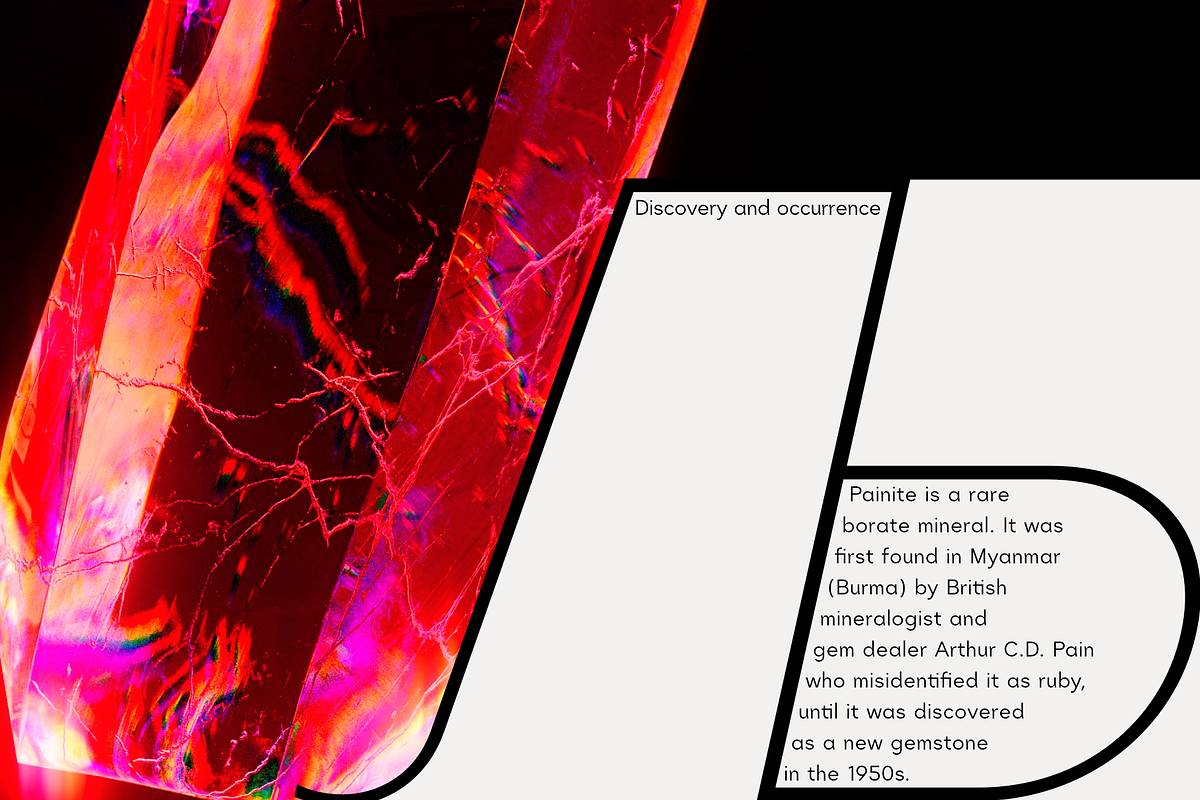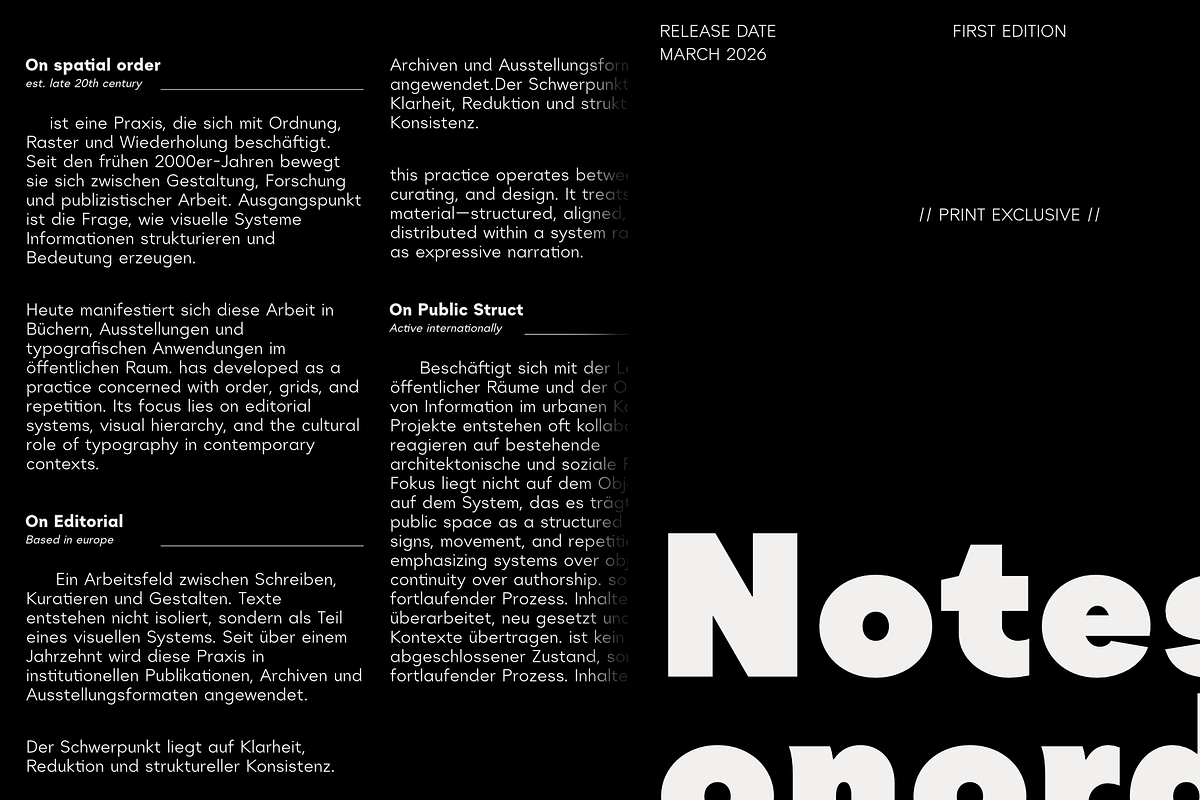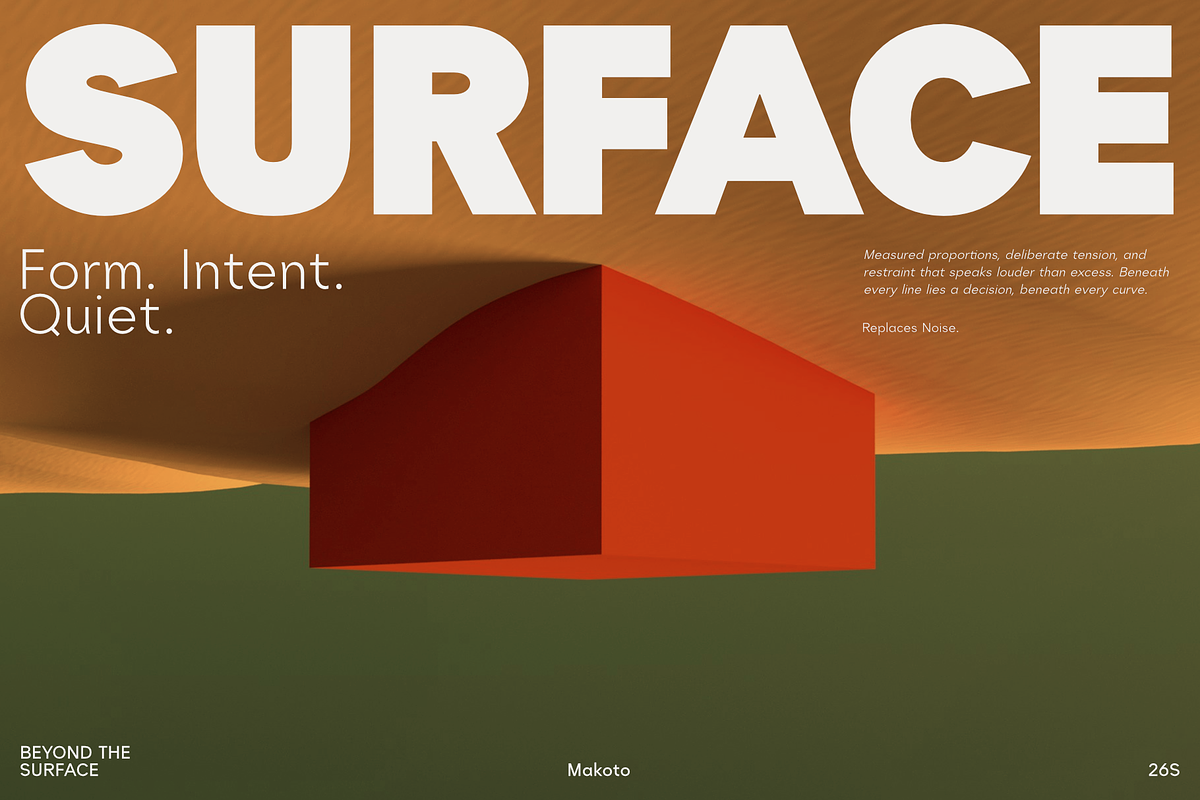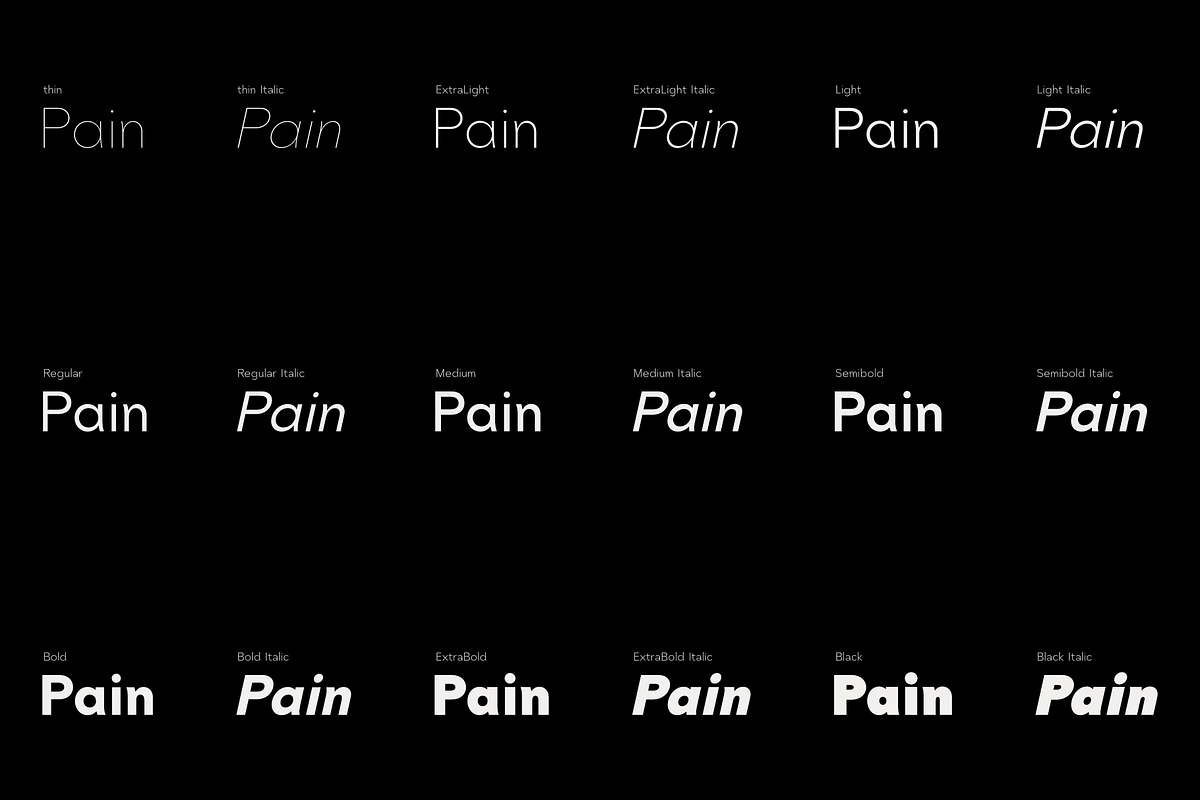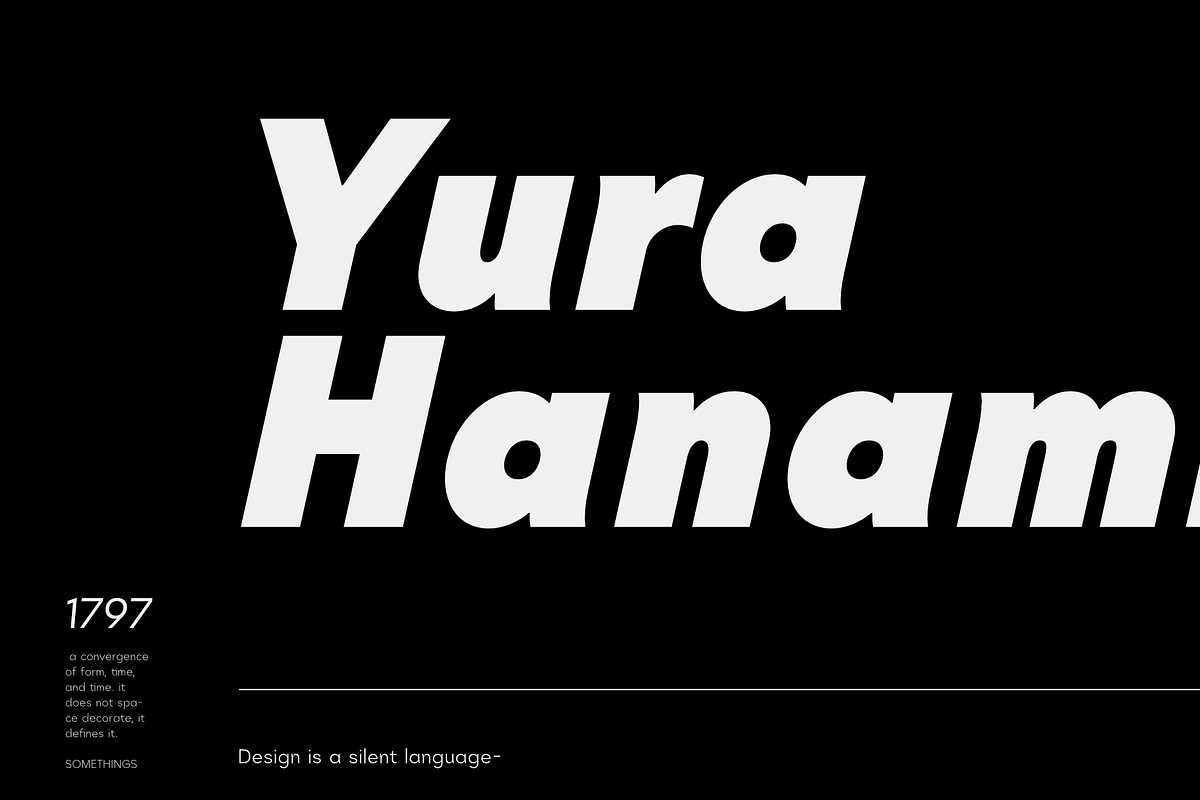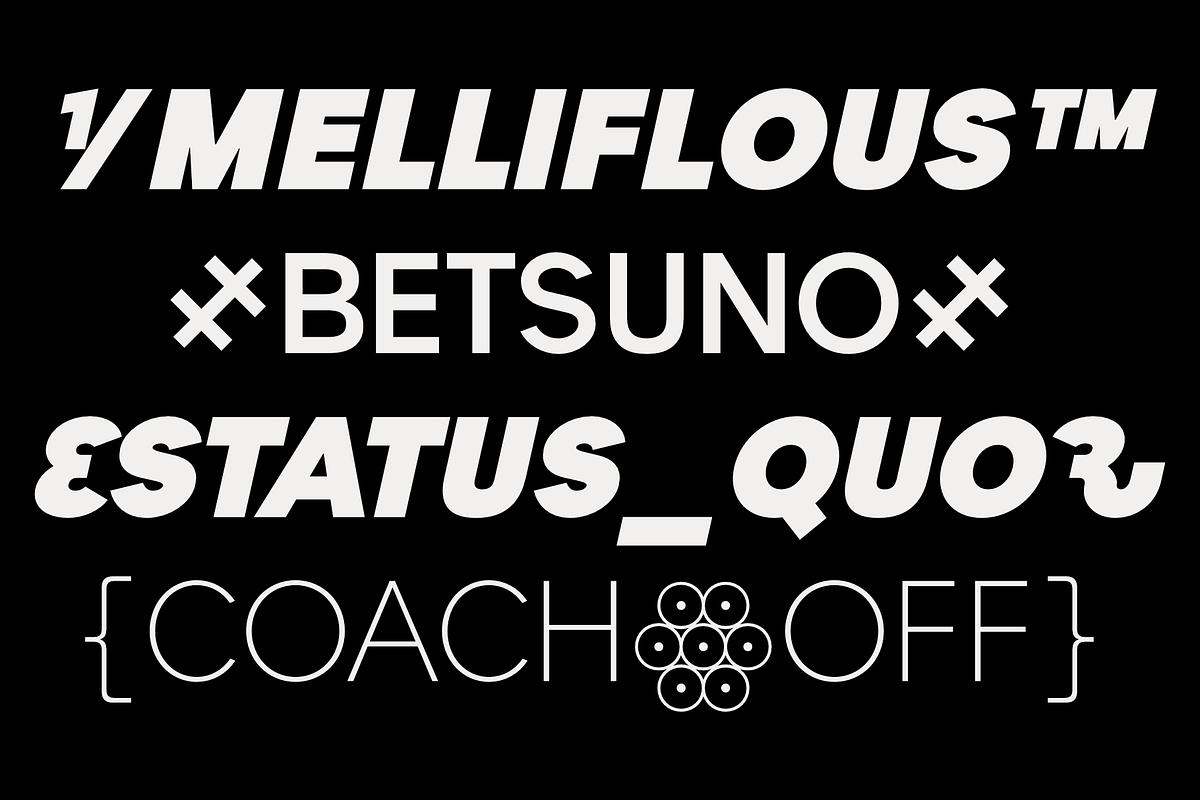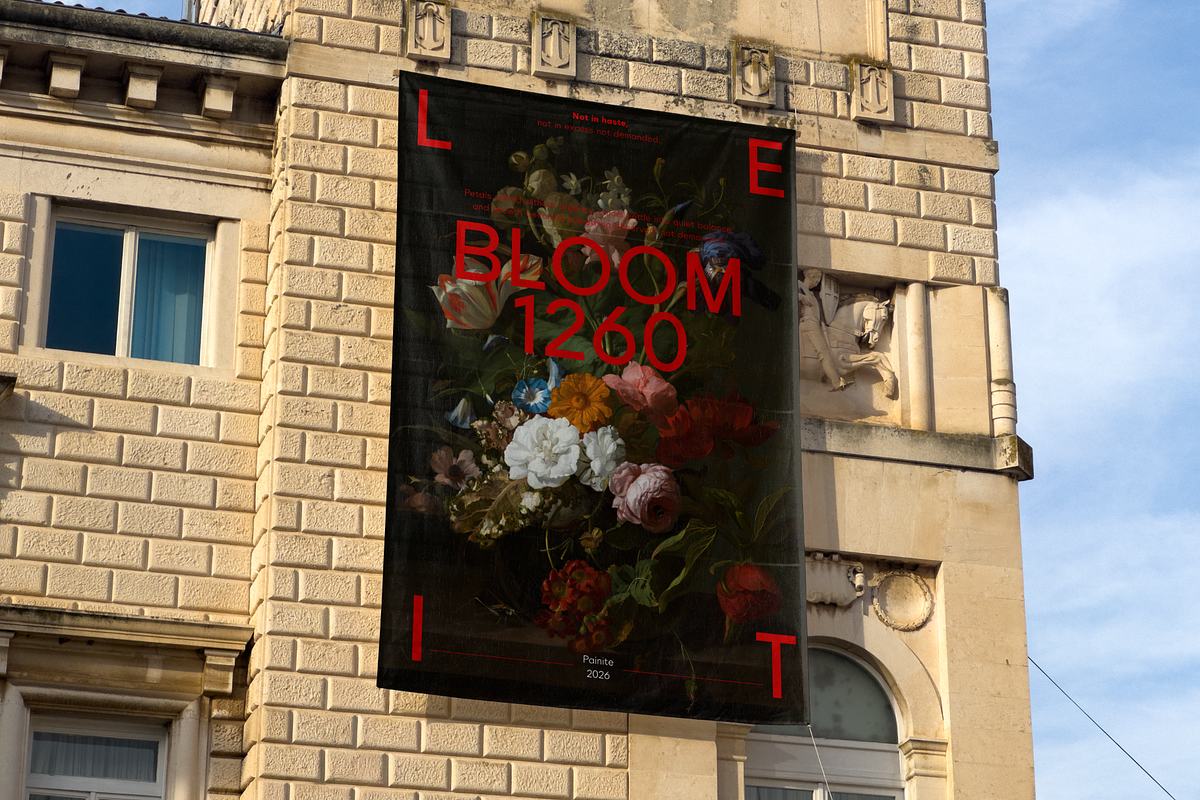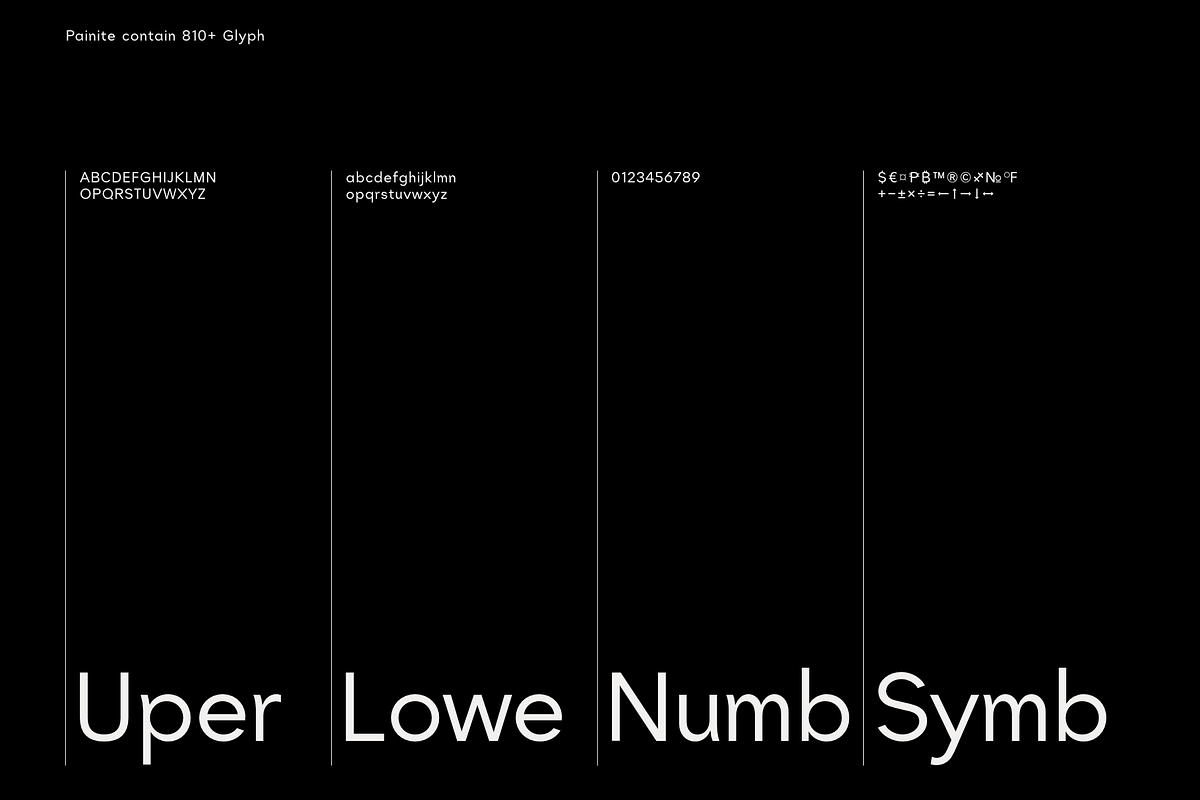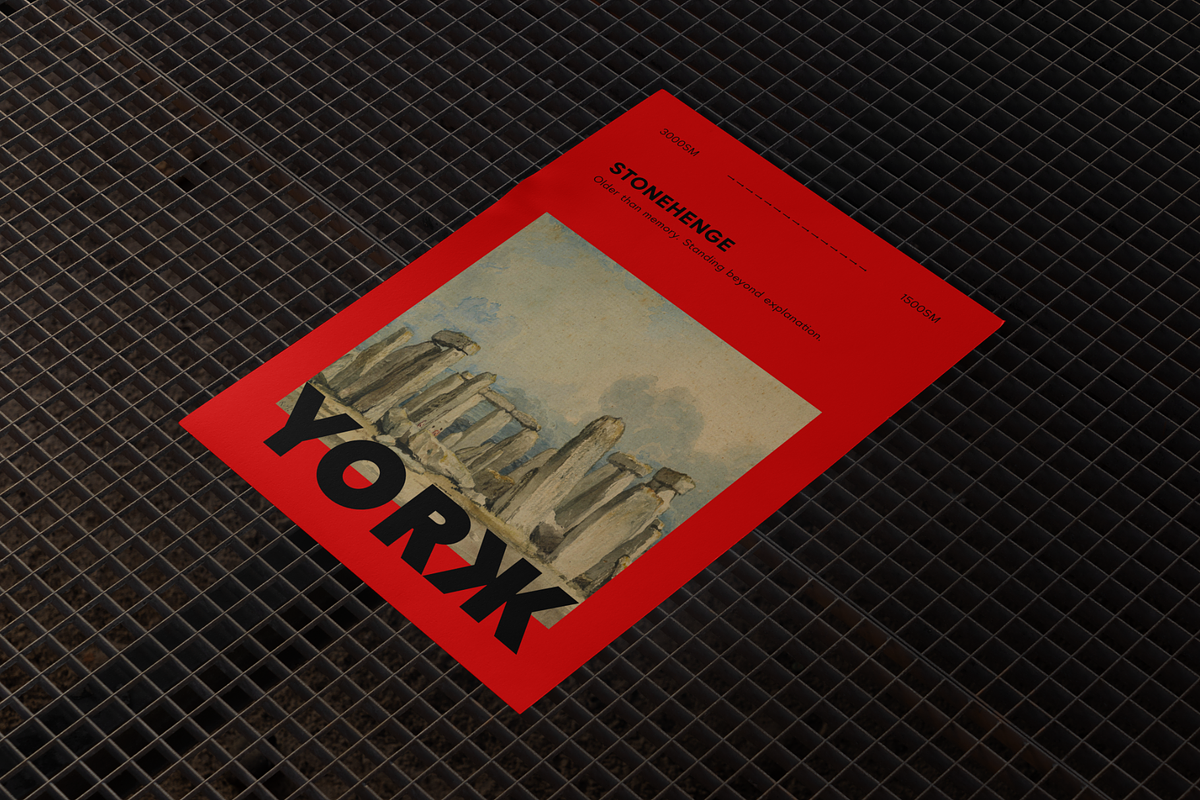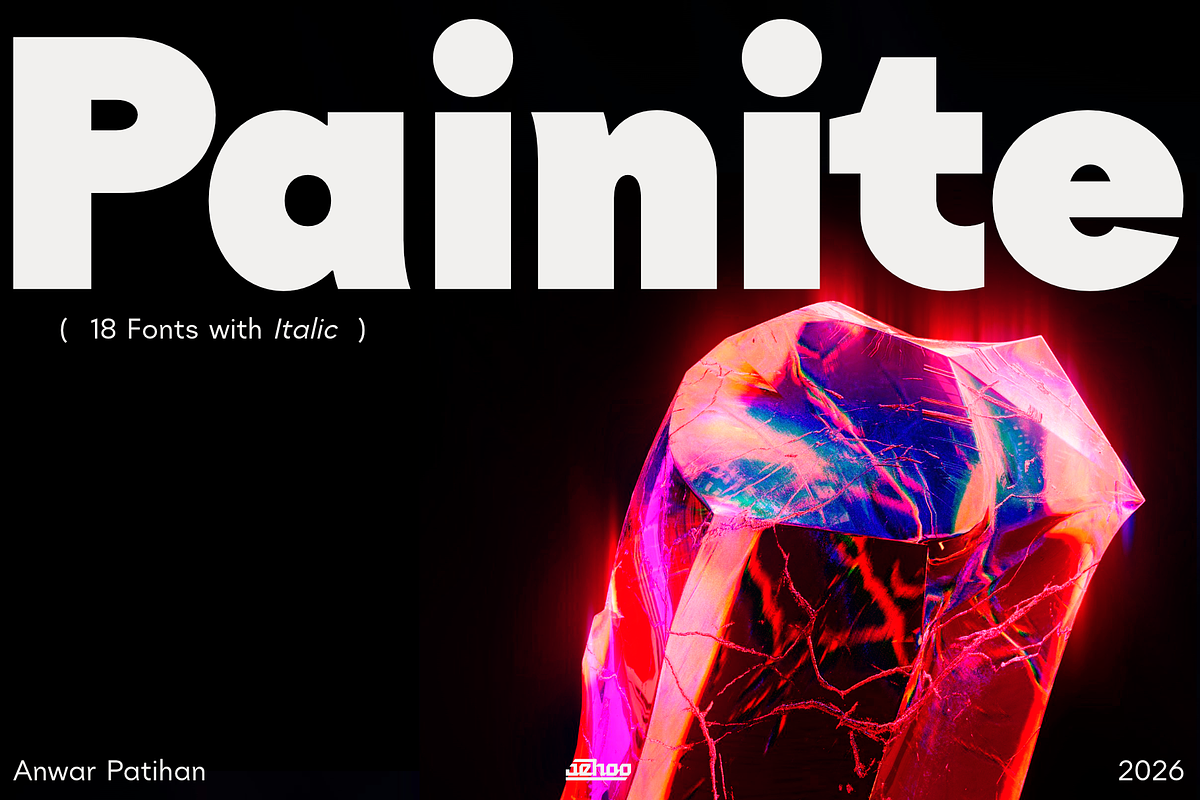
Painite - Future Sans
Painite is a contemporary sans-serif typeface inspired by the geometric spirit of Futura, reinterpreted through a modern and refined lens. Built on precise geometric structures, Painite embodies a clean design aesthetic—clear, rational, and visually balanced.
Painite is available in 18 static variants across 9 weights, ranging from Thin to Black, each paired with a carefully crafted italic. In addition, Painite comes in a Variable version, allowing seamless weight control within a single font file and offering maximum flexibility for responsive and dynamic design systems.
Designed for versatility, Painite performs confidently in headlines, branding, editorial layouts, and digital interfaces. With full Cyrillic support, Painite extends its usability to a global scale, making it a reliable choice for projects that value geometric precision, readability, and a timeless modern character.